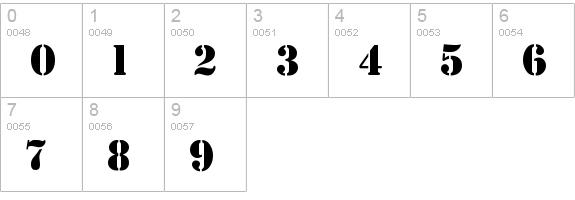
Stencil ICG Font Details
Stencil ICG is a versatile and modern font that combines the classic stencil design with a contemporary twist. With its bold and striking appearance, Stencil ICG is perfect for creating eye-catching headlines, posters, and logos that demand attention. The clean lines and sharp edges of this font give it a sleek and professional look that is sure to make your designs stand out. One of the best things about Stencil ICG is that it is completely free to download at FontsMarket.com. This means that you can start using this stylish font in your projects without having to worry about any additional costs. Whether you are a professional designer or just looking to add a unique touch to your personal projects, Stencil ICG is a fantastic choice that will help you make a bold statement. Download Stencil ICG today and take your designs to the next level!